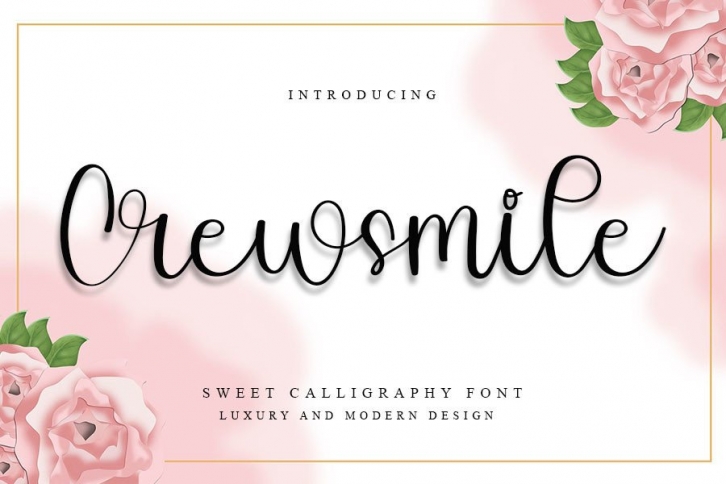
Crewsmile feels equally charming and elegant. It looks lovely on wedding invitations, thank you cards, quotes, greeting cards, logos, business cards and every other design which needs a customized touch.